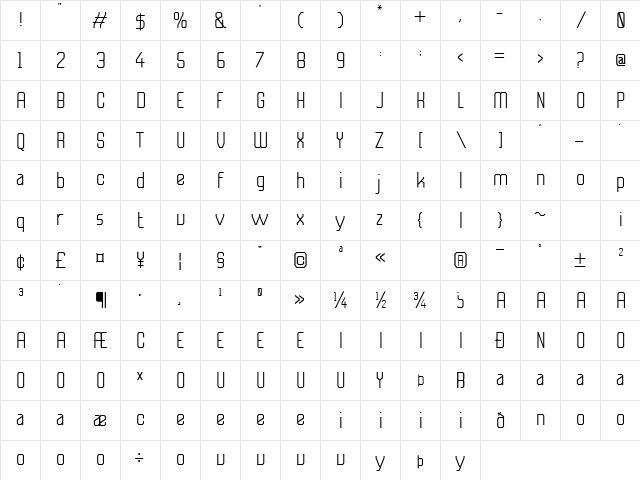
Futurama Light Font Preview
Futurama Light
Futurama Light Font Details
| Foundry | Fortunes Foundry |
| Designer | ramandhani |
Design Context for Futurama Typeface
Futurama has a distinctly futuristic character, with geometric precision and clean angles that feel at home in technology, gaming, and sci-fi contexts. Its slender proportions lend an understated elegance to any composition.